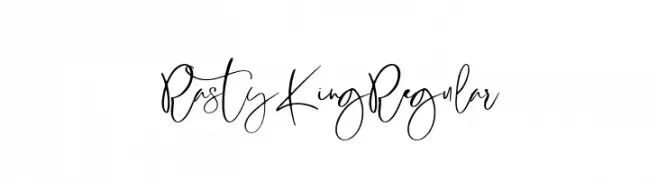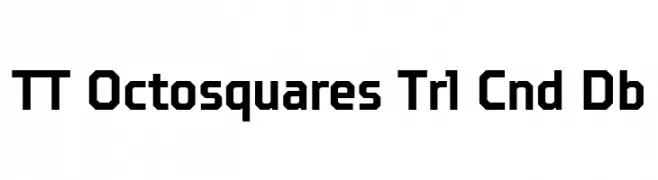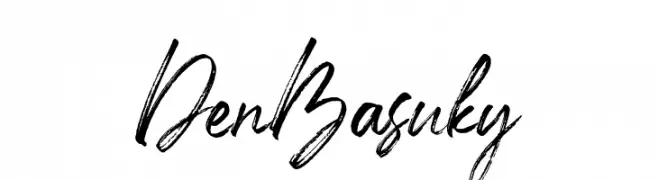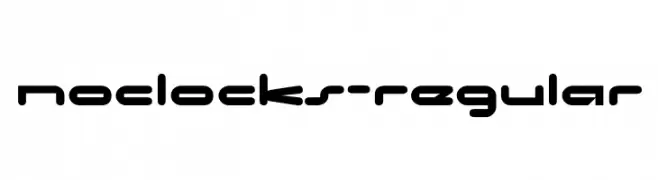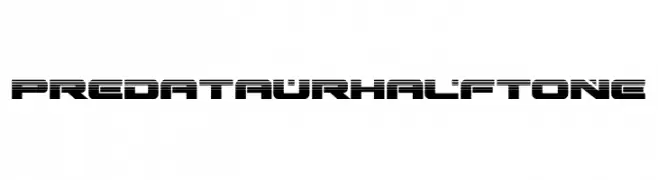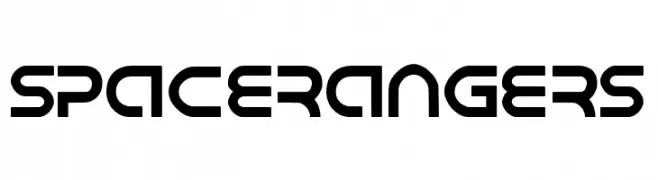
A fluid and elegant script font with medium contrast and dynamic letterforms.
A lively, cursive font with a playful and artistic handwriting style.
A bold, geometric font with angular and condensed letterforms.
A bold, textured handwritten font with dynamic and expressive strokes.
A futuristic, geometric font with rounded edges and a bold style.
A bold, whimsical script font with elegant swirls and loops.
A modern, whimsical handwritten script with tall, narrow forms and playful loops.
A bold, futuristic font with a halftone effect and geometric design.
Futuristic geometric sans-serif with a sci-fi vibe.
A refined and elegant script font with flowing cursive letters and dynamic contrast.